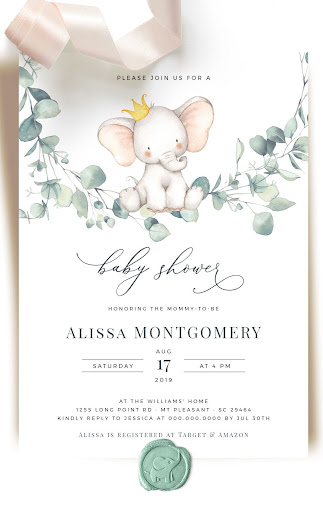
Cute Baby Shower Fonts
It is easily legible and can be obtained with an optimum size of 36pt. It can be utilized to create typography for baby shower greetings, banners, gift wraps and more.
Kg behind these hazel eyes. Thousands of typefaces are considered, but only a select few make it into the arsenal. This is one of the simplest but cutest baby shower fonts ideal to represent your infants baby shower event elegantly.
Every font is free to download! Experts say that young ones develop recognition for movement and color within 10 to 12 weeks after birth. 31 cute baby fonts that are full of love and happiness as humans have always been visual creatures, it’s no surprise that babies have a natural inclination towards it early on.
If you find perfect baby shower fonts from this collection, don’t forget to bookmark this page so you can reference it the next time you need to find a thin font. This typeface looks so awesome that it can give your baby shower invitations a really stylish appearance. Gift these priceless moments to innocent smiles with our classic collection to convey the feeling from your heart to.